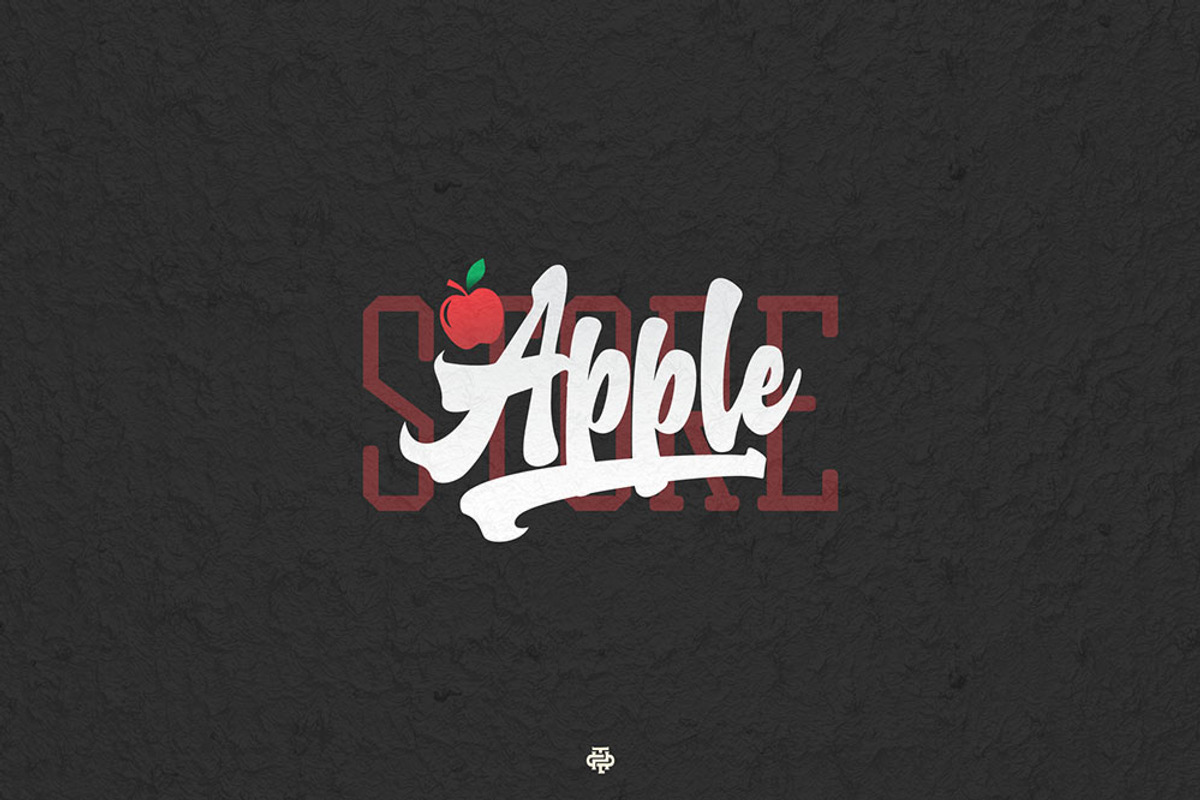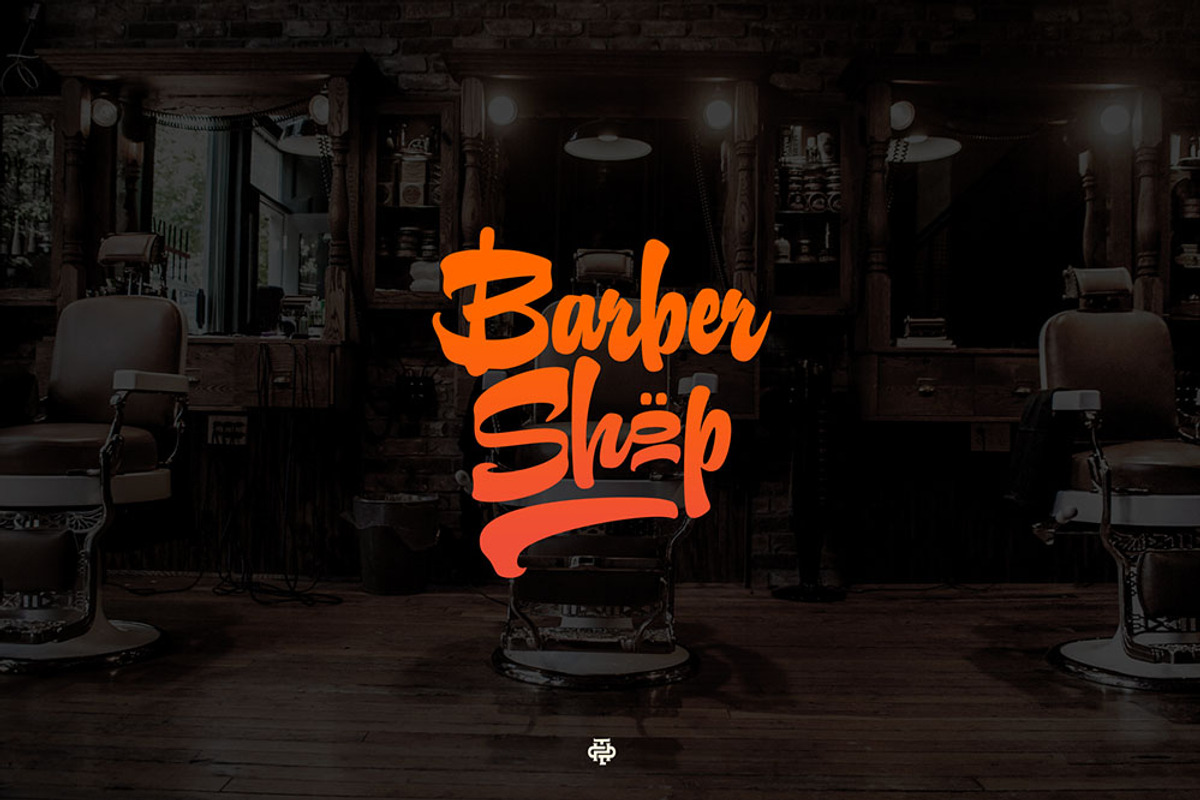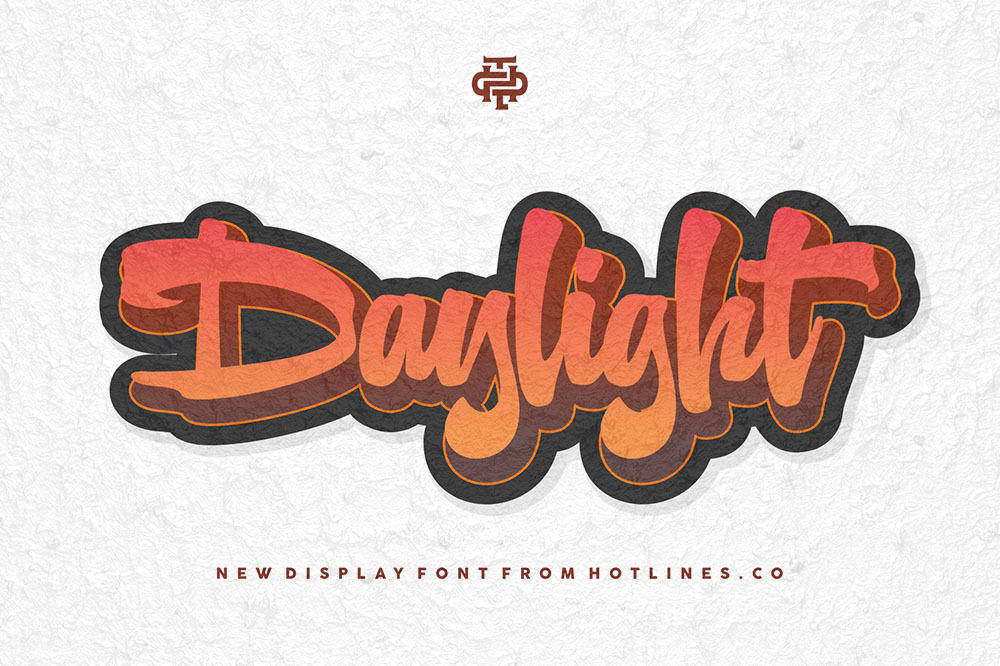
Daylight typeface
Daylight typeface is new font from Hotlines.co, elegant feel character set. To create the beautiful combination, just mix the uppercase and lowercase then mix with the alternative glyphs.Daylight typeface insfire from graffiti style and hip hop style.
Daylight typeface
Daylight typeface Swash
Swash
ligature
Daylight typeface is suitable font for many creative products & designs.